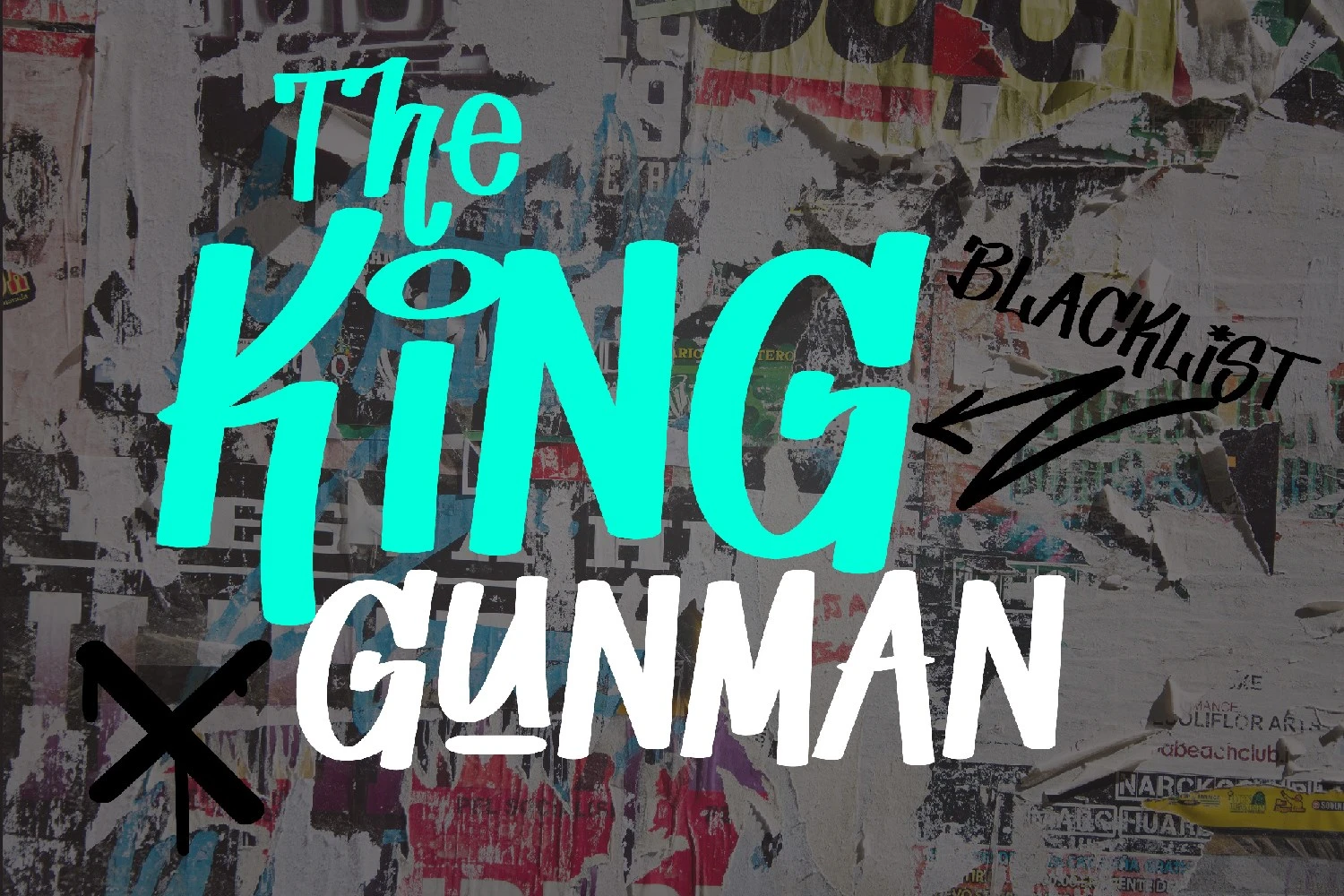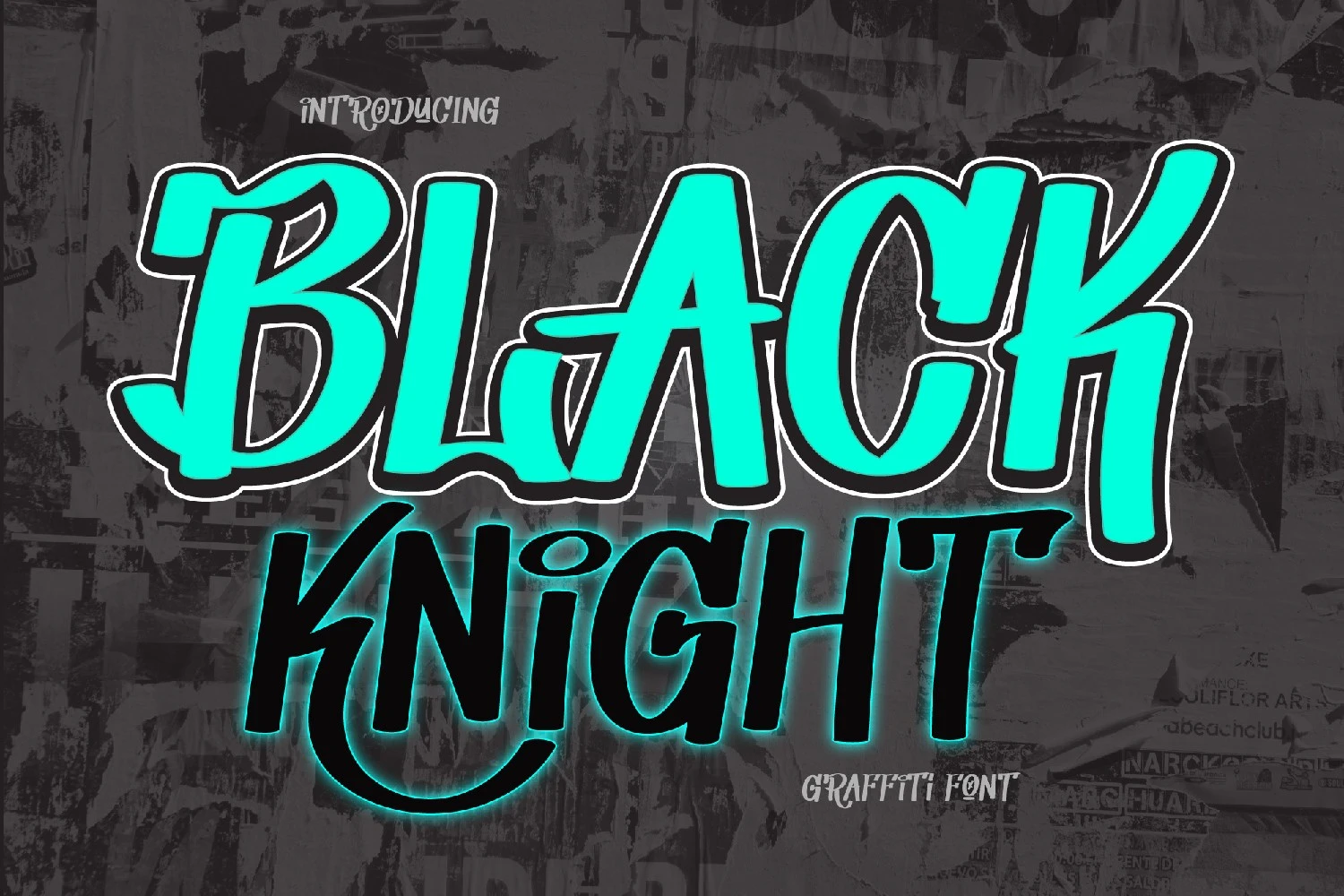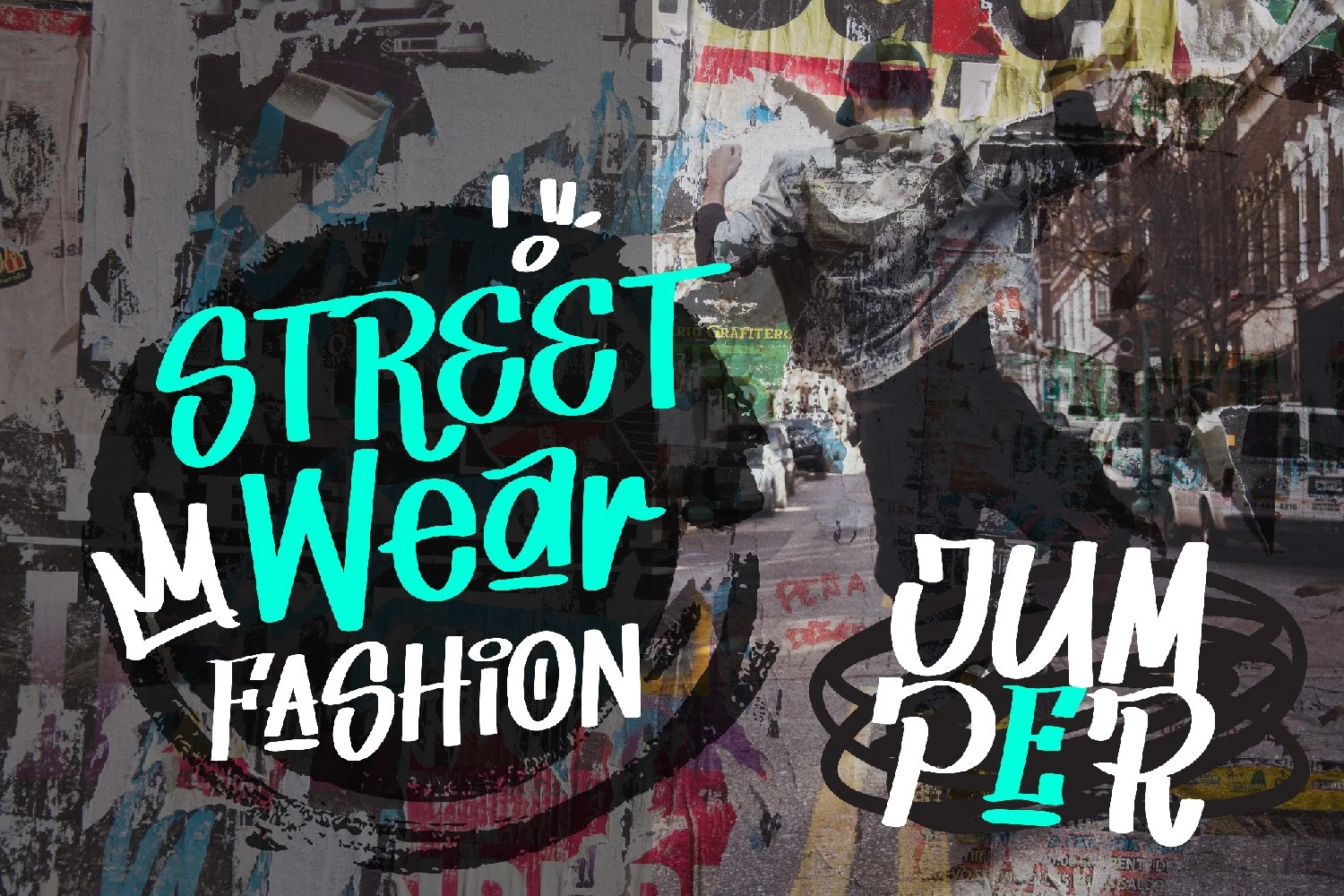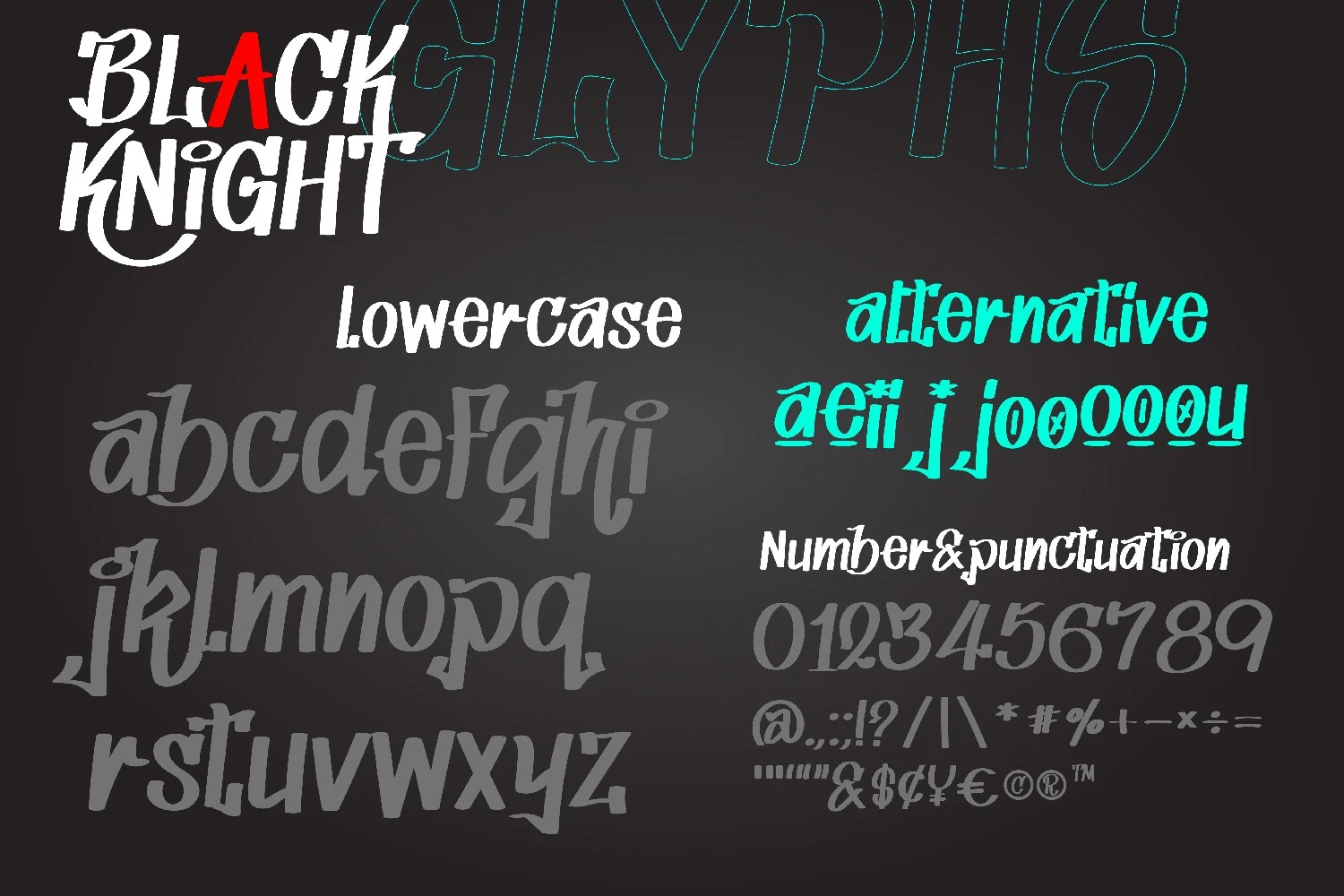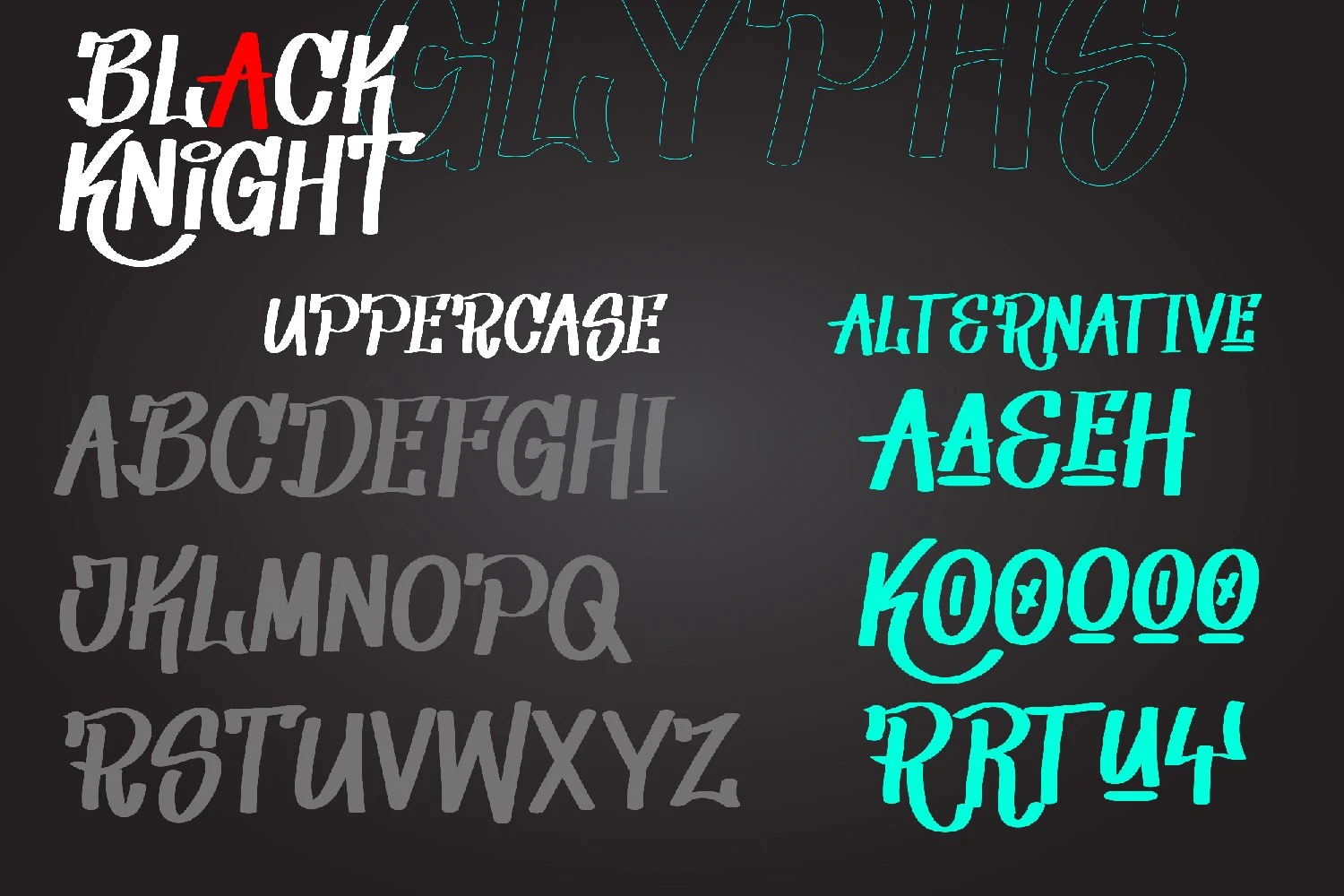
Black Knight is an awesome, graffiti-style display font that has a street art vibe. This font is suitable for designs such as t-shirts, sportswear, logos, advertisements, clothing, and more.